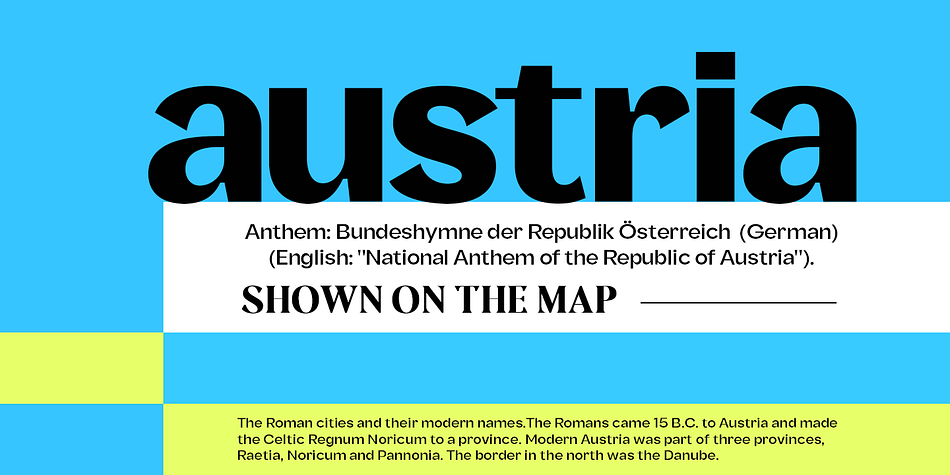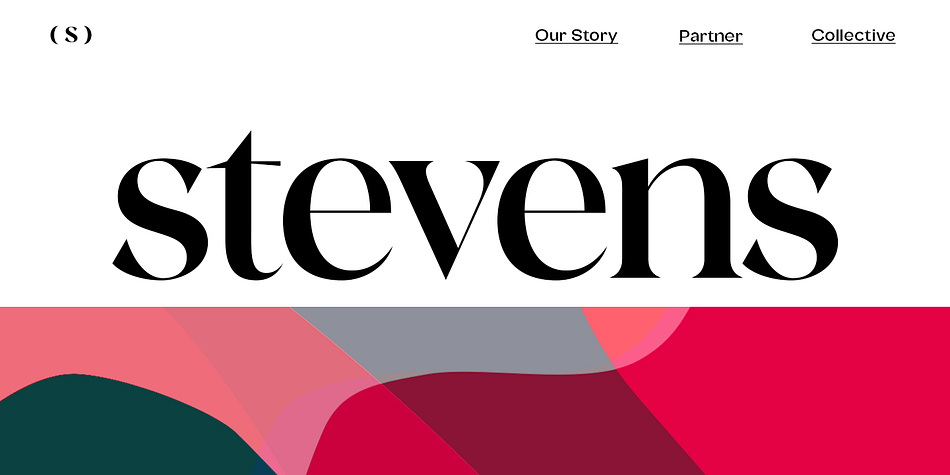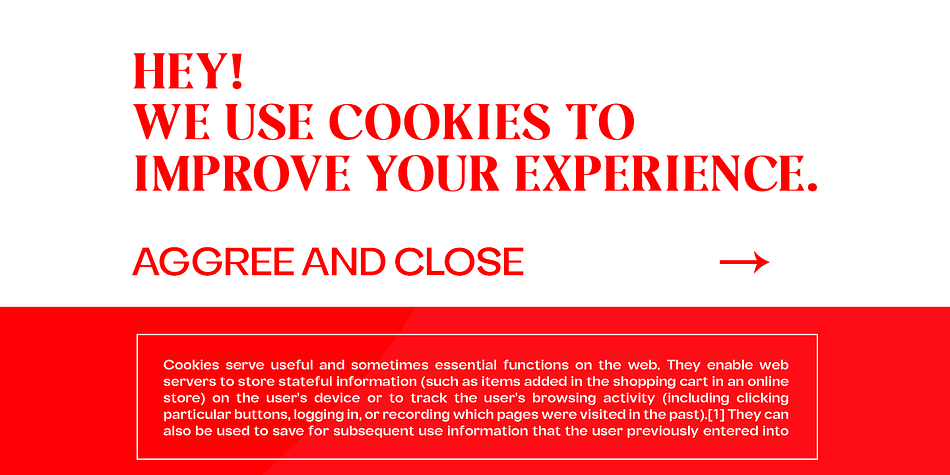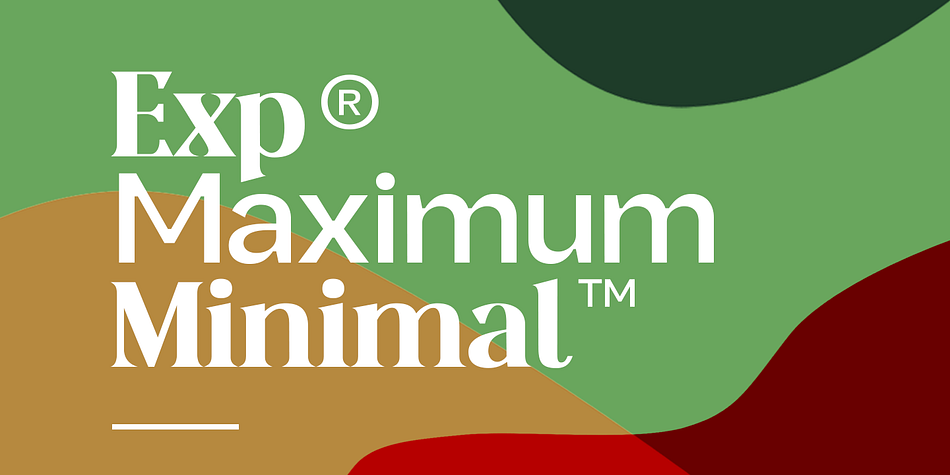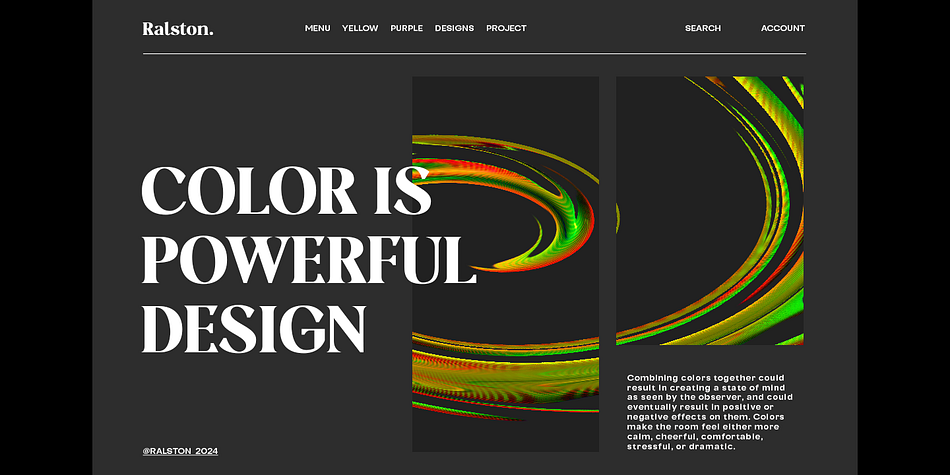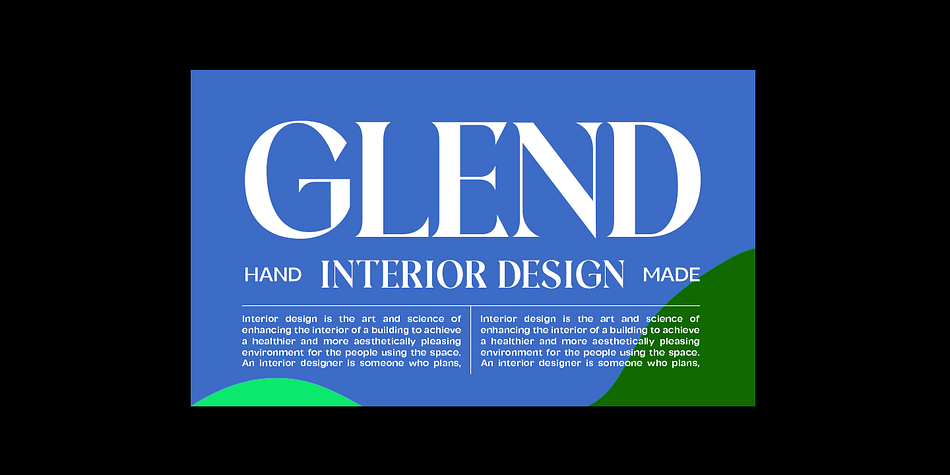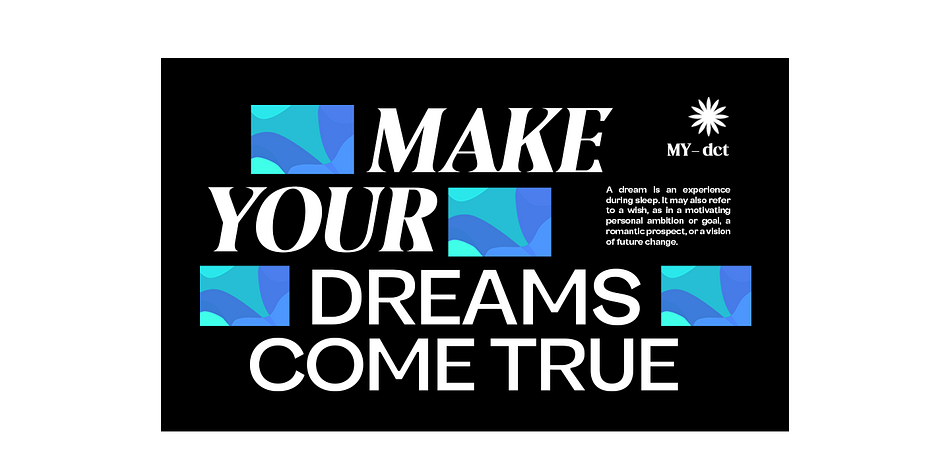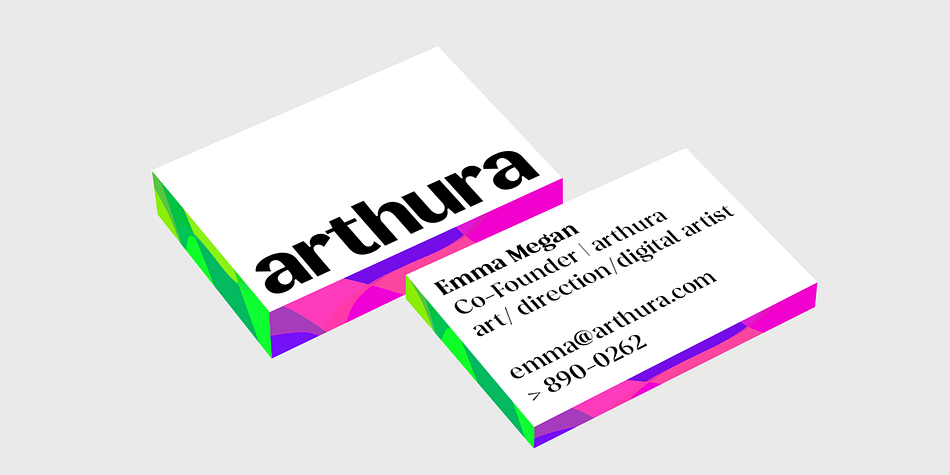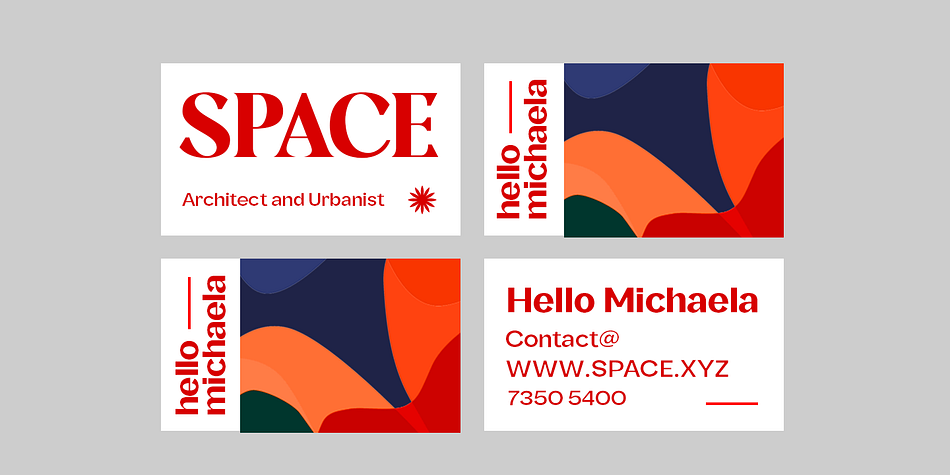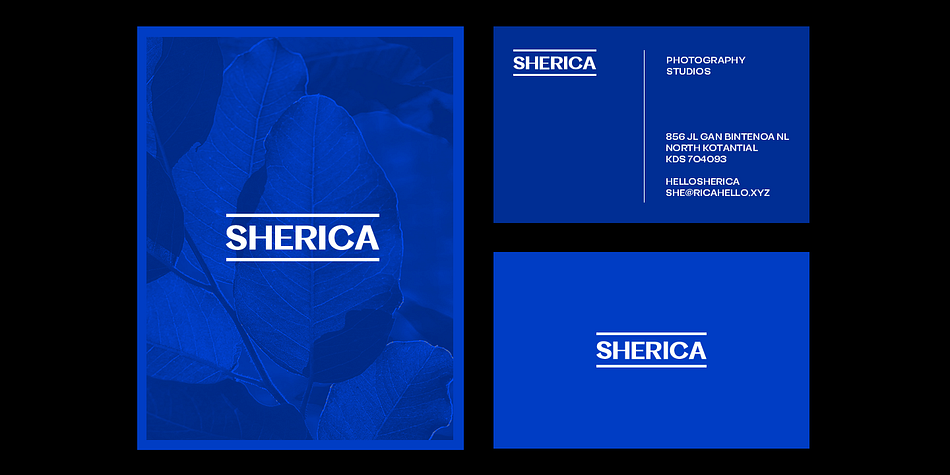
Fregan is a multiple classification font family. This typeface has four styles and was published by Seniors Studio.
Fregan Typeface is sharp serif font with an elegant feel. Unique character by combining geometric shapes with organic curvy details. It is a unique typeface for your individual personality. Inspired by old-style serif and contemporary fonts. And additional Fregan Sans, working in harmony with Fregan Serif to create typography awesome creations. Perfectly for elegant branding, magazine design, logo design, headlines, posters, packaging, cards or your wedding invitation and more.